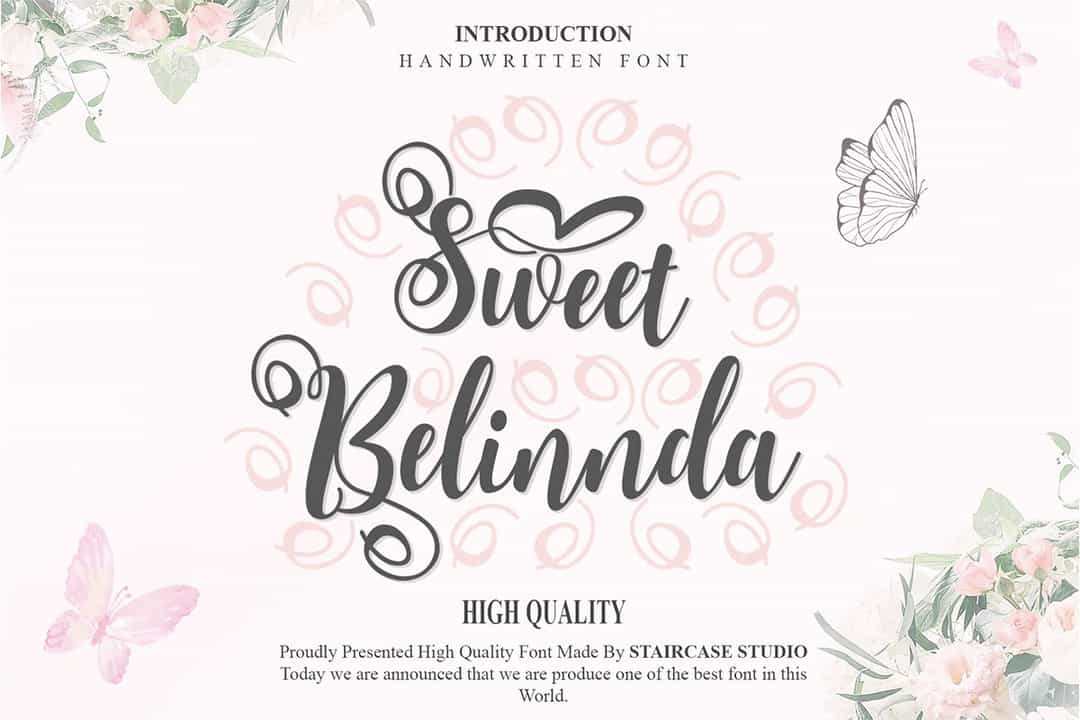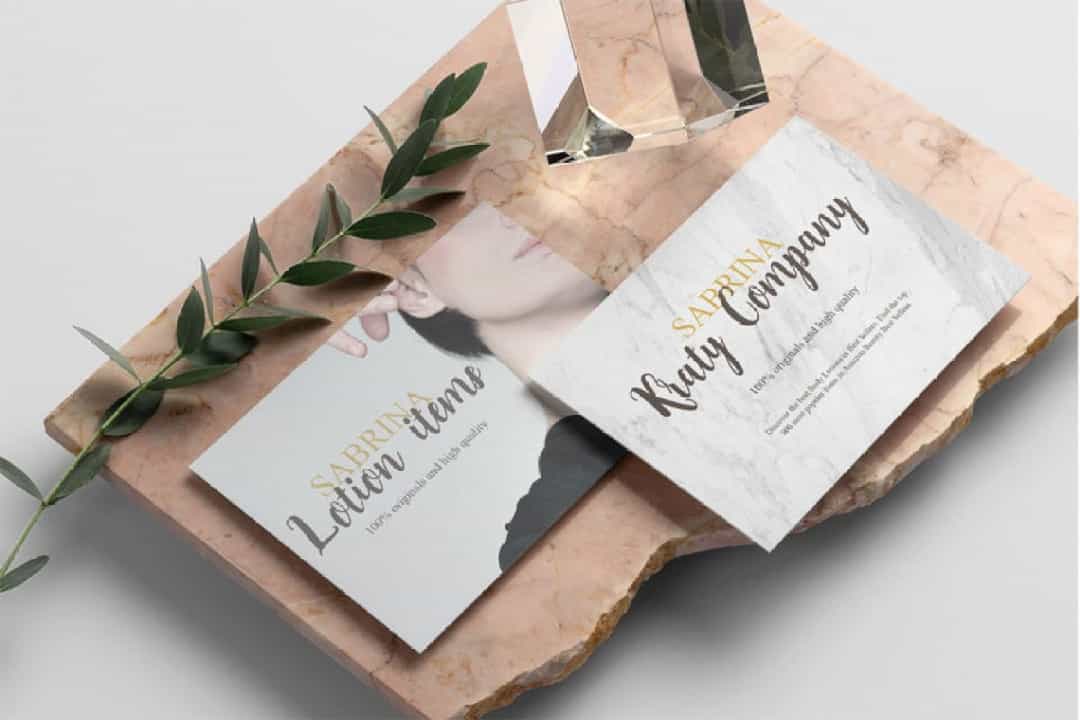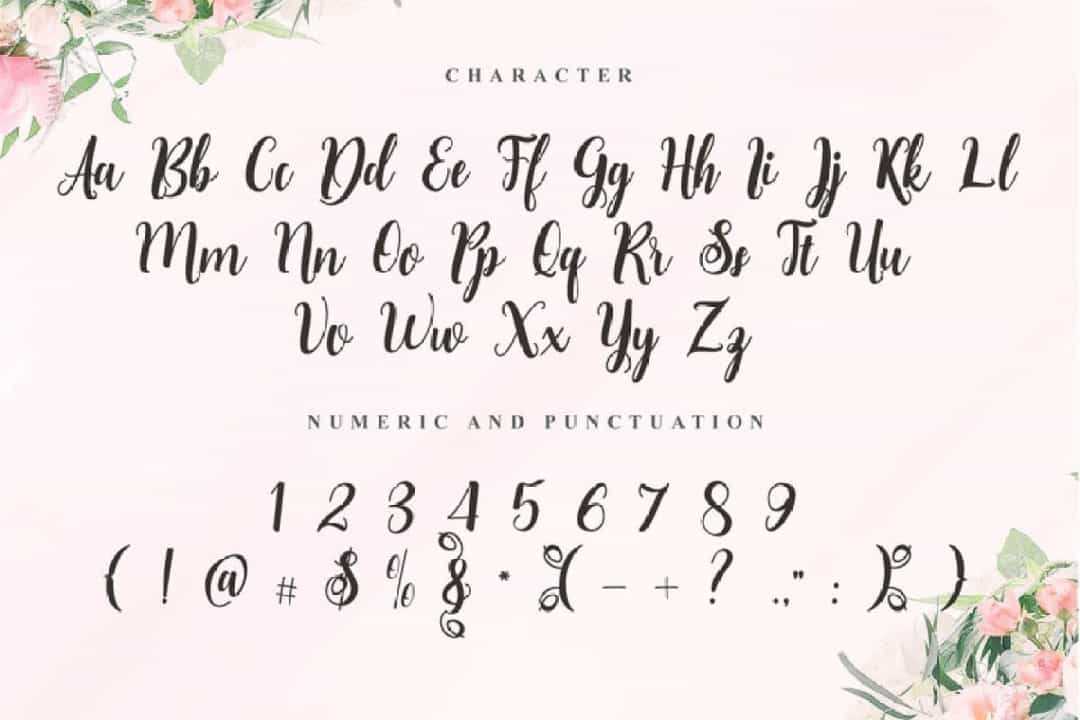
Sweet Belinnda font comes with many stylistic sets, ligatures, and ends in the lowercase letters. Furthermore, this font has uppercase and lowercase punctuations, numerals and alphabets that facilitate the designing of wedding invitation cards, prints, quotes among others.